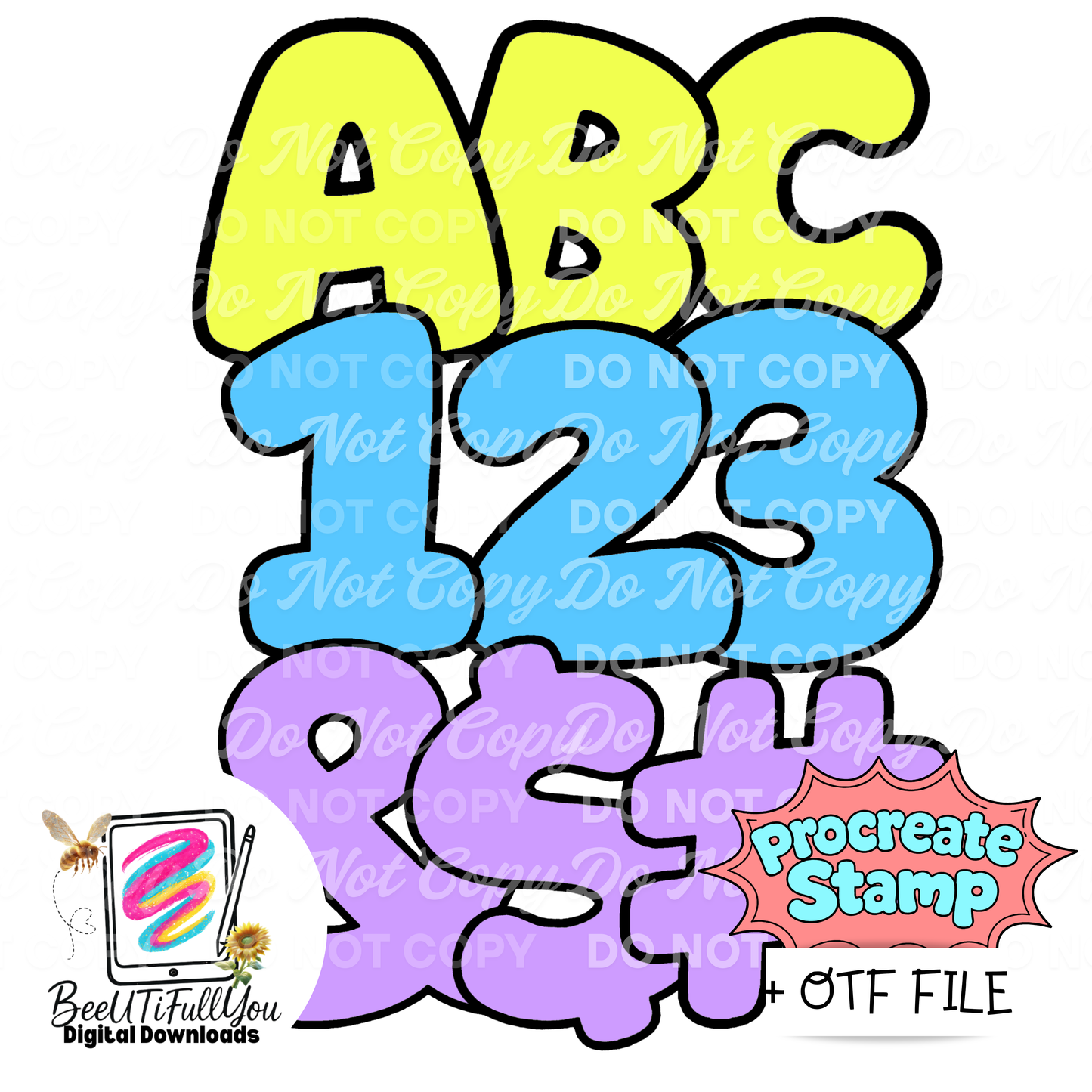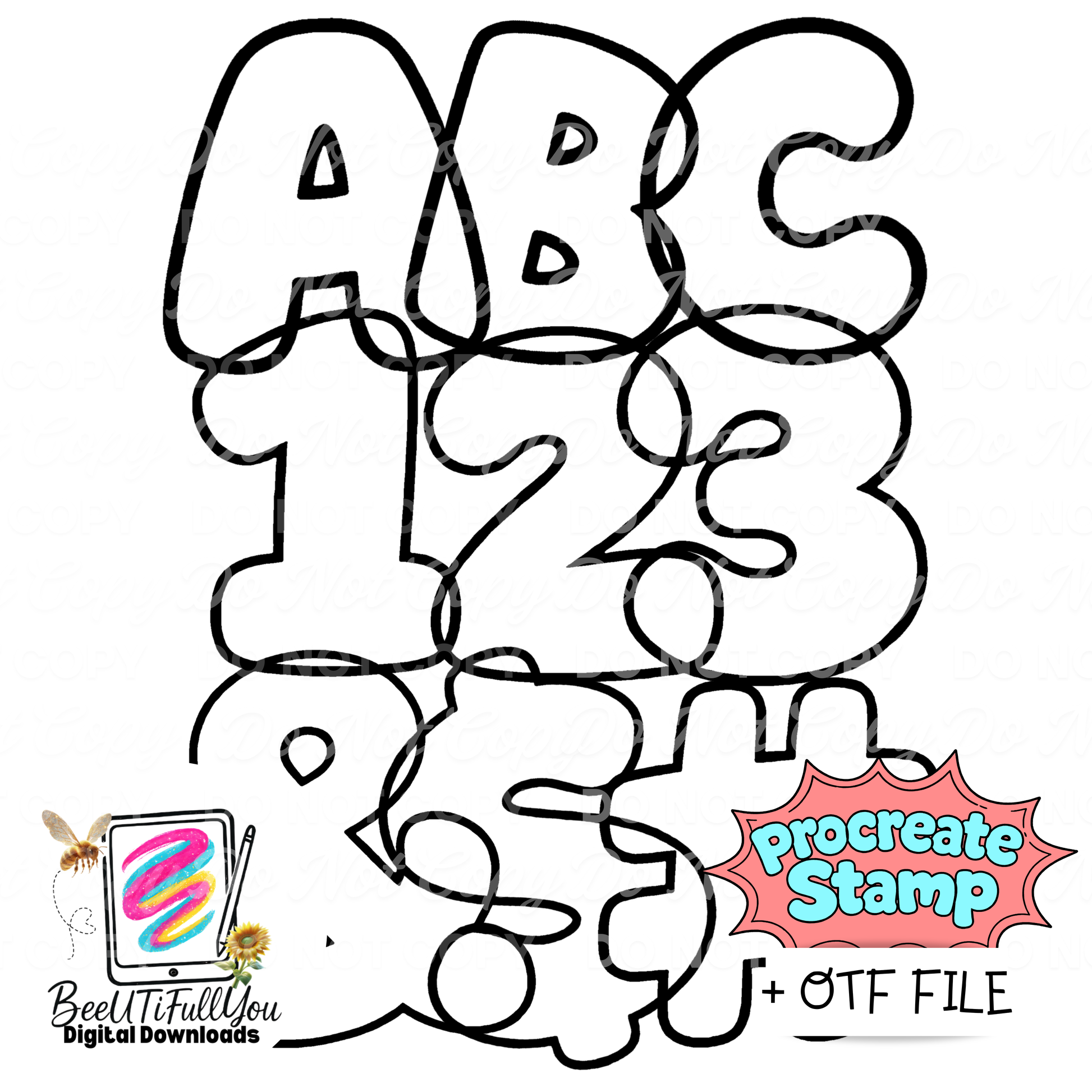
ABC 123 Bubbly Font Outline – Procreate Stamp + OTF
This ABC 123 Set is a bold, bubbly outline alphabet designed for creators who want full flexibility — including creating and selling their own fonts.
✔ A–Z uppercase alphabet (outline style)
✔ Numbers 1–9 (outline style)
✔ Clean, bold bubble outlines
✔ High-resolution, smooth linework